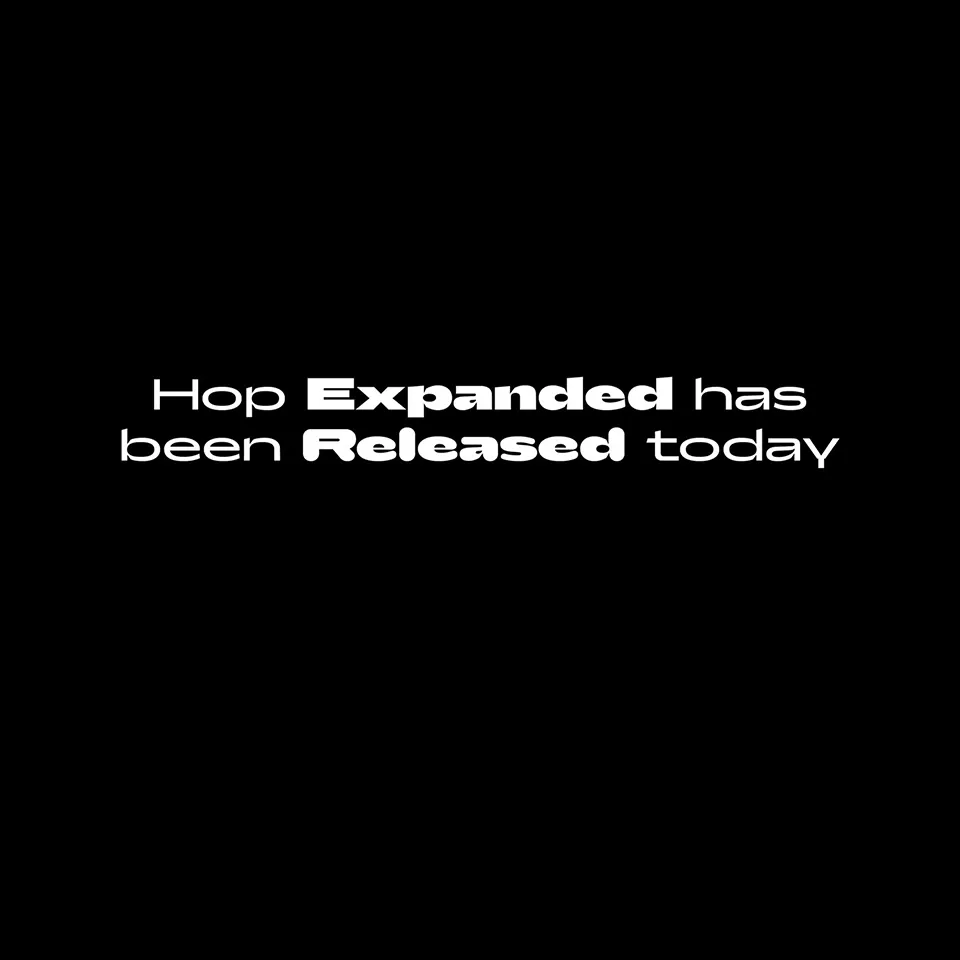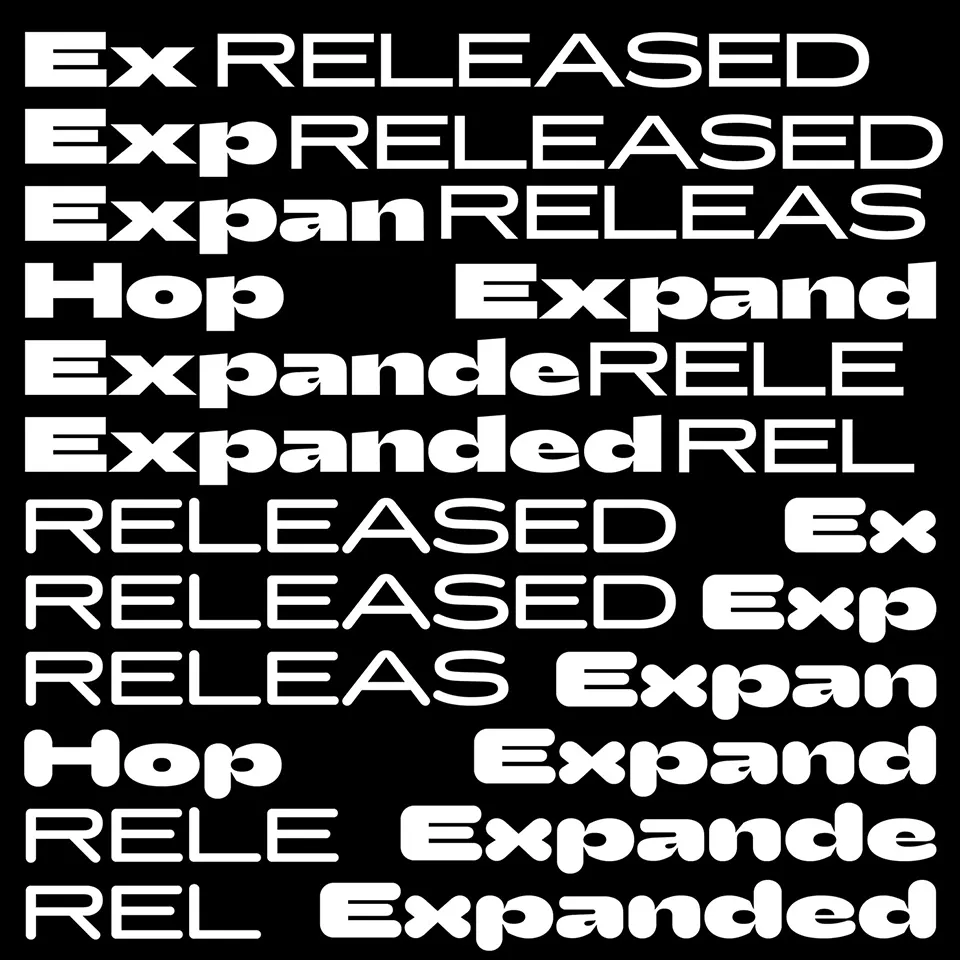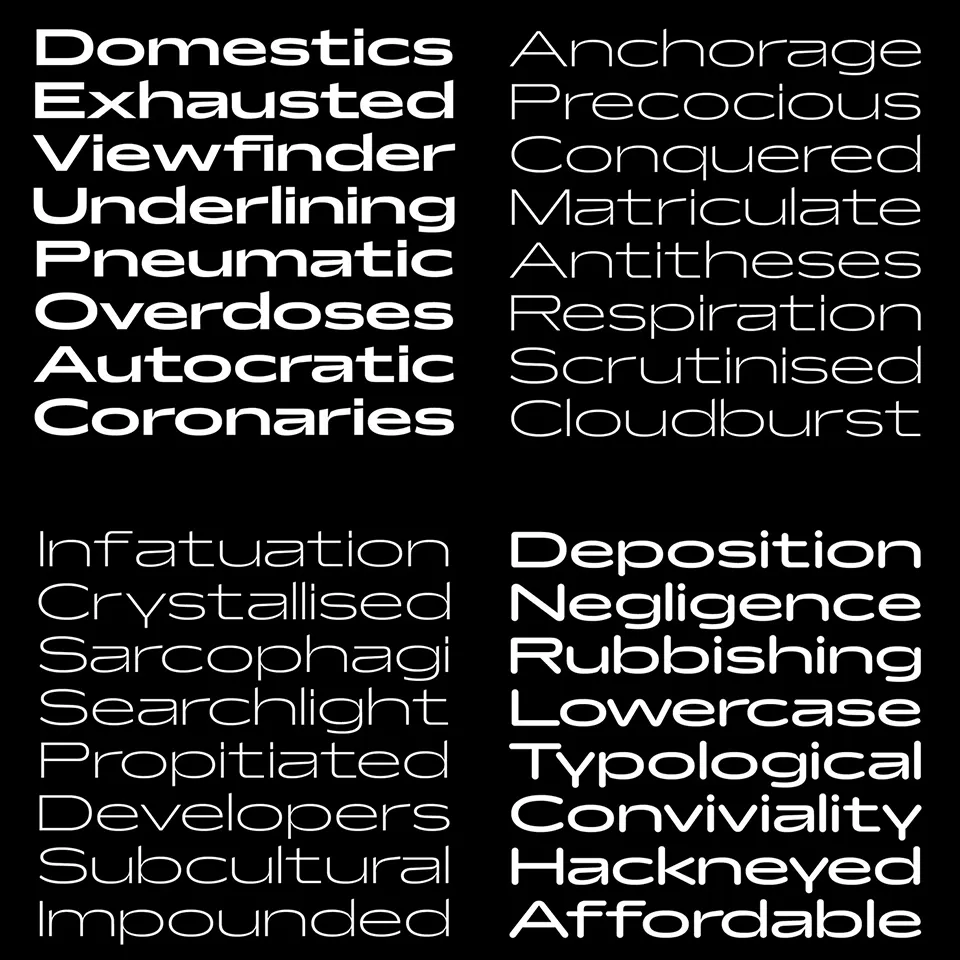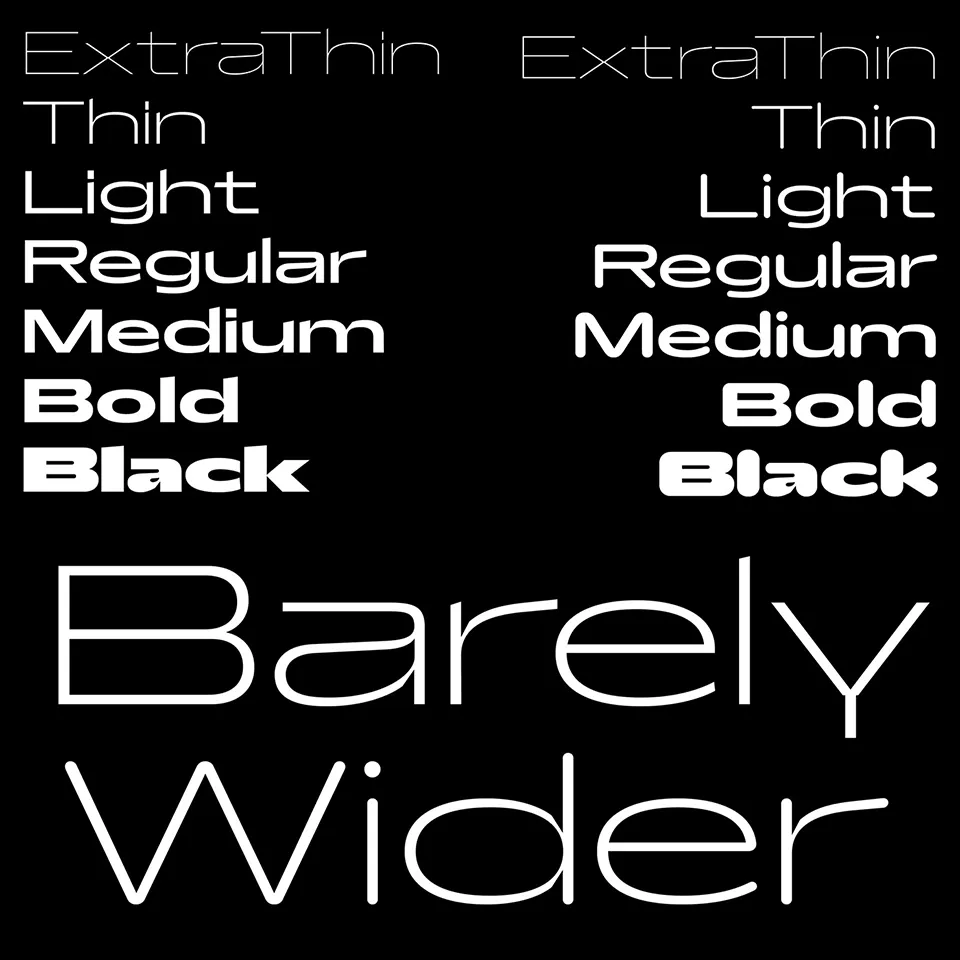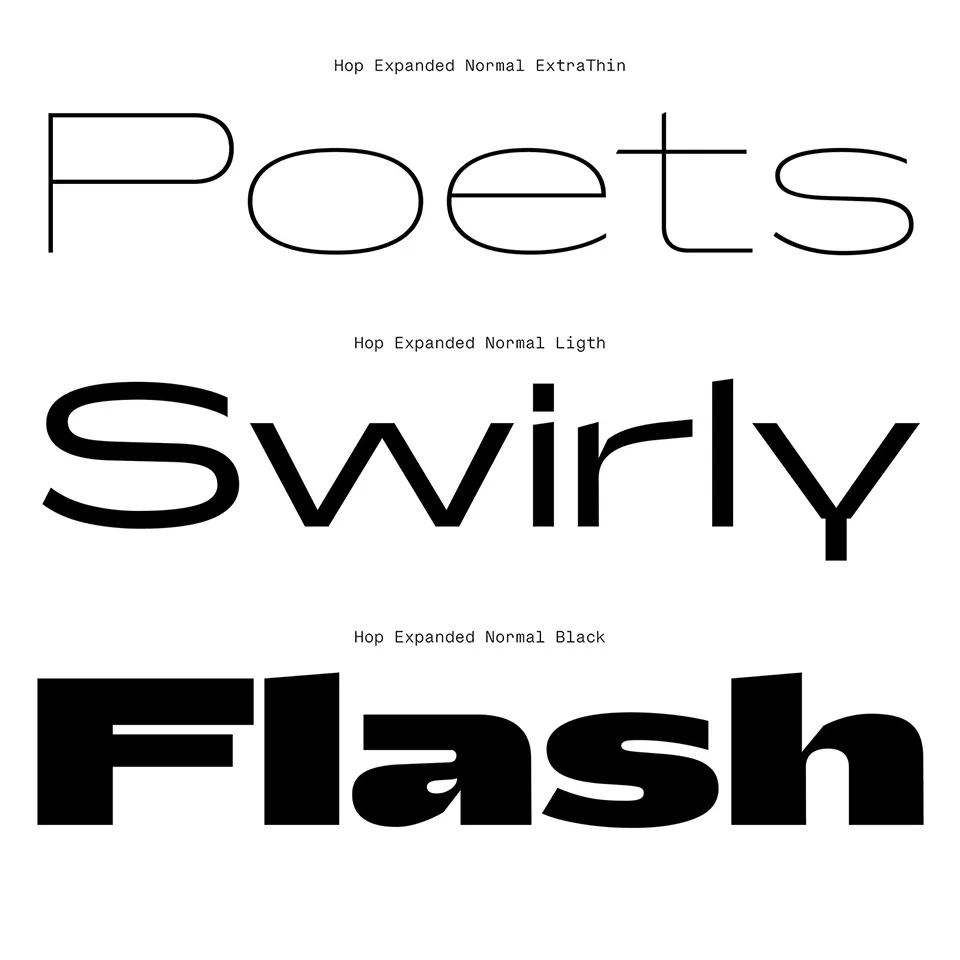
Hop Expanded Font Family
The Hop Expanded Font Family is a versatile and modern sans serif typeface offering 15 different weights and variable font capabilities. Featuring both Normal and Rounded styles, it combines a calligraphic approach in the connection between stems and bowls, resulting in strong, straight letterforms or smooth, rounded sensations. With a wide range of weights and customizable corner radii, this font is perfect for impactful headlines, branding, and contemporary design projects.